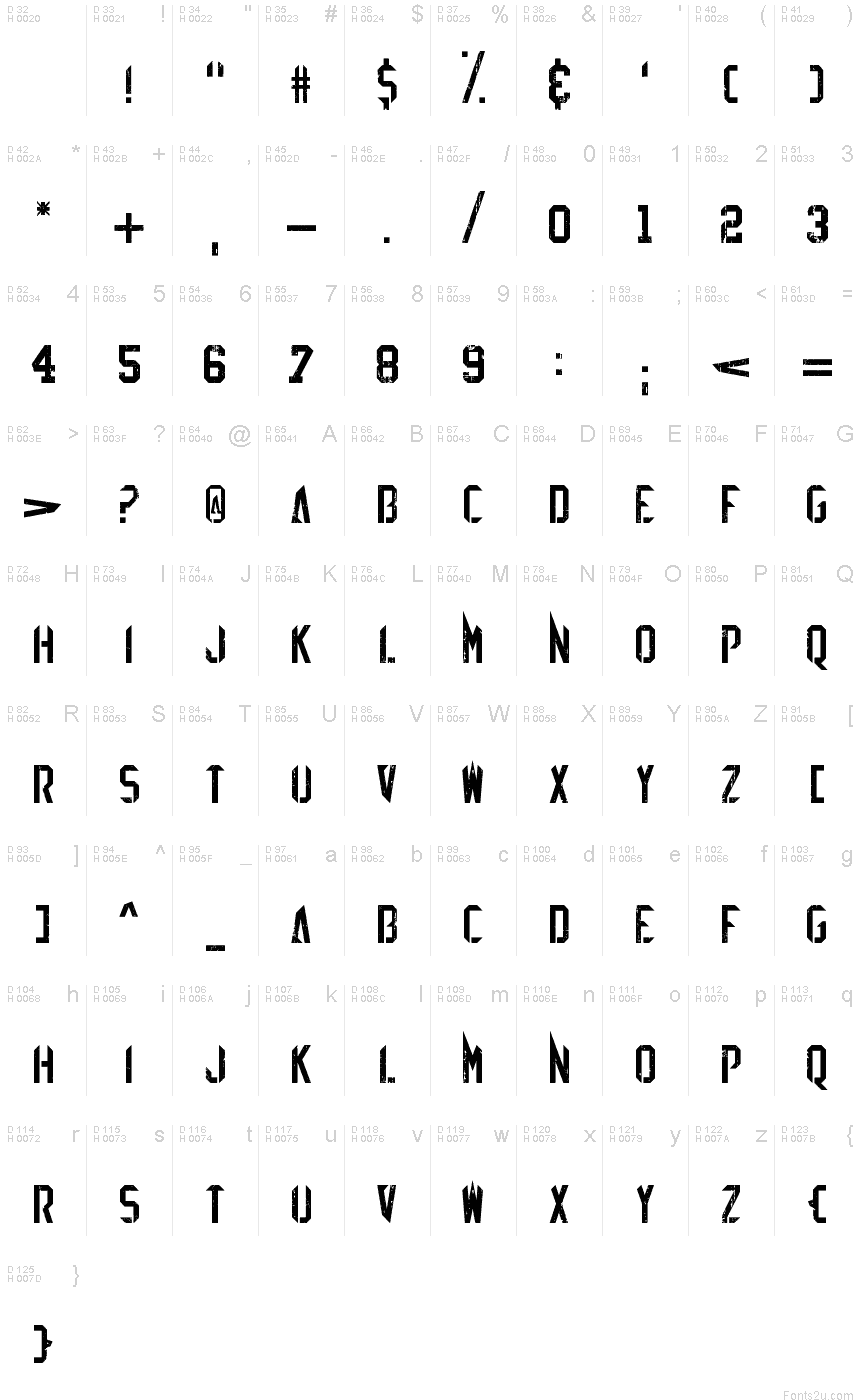
EZ Sharpz by Jayde Garrow Fonts is a free eroded techno display font with an aggressively angular silhouette. Tall, tight letters end in blade-like points and deep diagonal cuts. Scattered chips roughen the otherwise mechanical forms.
The industrial edge can suit both action-game graphics and branding for alternative music. It also has the hard-edged impact needed for sports merchandise and event posters. In editorial design, its fractured surfaces could turn a cover line into part of a dystopian or heavy-metal visual theme.